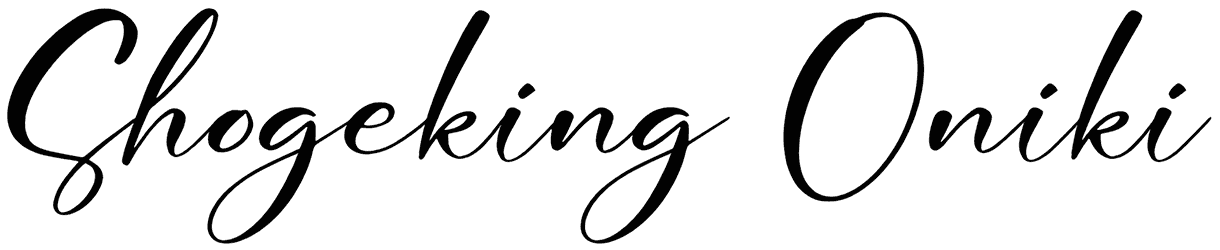
Shogeking Oniki Font
Embrace this compelling handwritten design to present your brand names and implement your creative ideas in a chic style. Ads, cosmetic packages, or social media posts would benefit a lot from the artistic effect of this impactful handwritten font.
Shogeking Oniki font grips the viewer’s attention and increases the engagement rate. After downloading it, in a sec, with the help of full letters, you’ll change the aesthetics of the main project and the result to your taste.